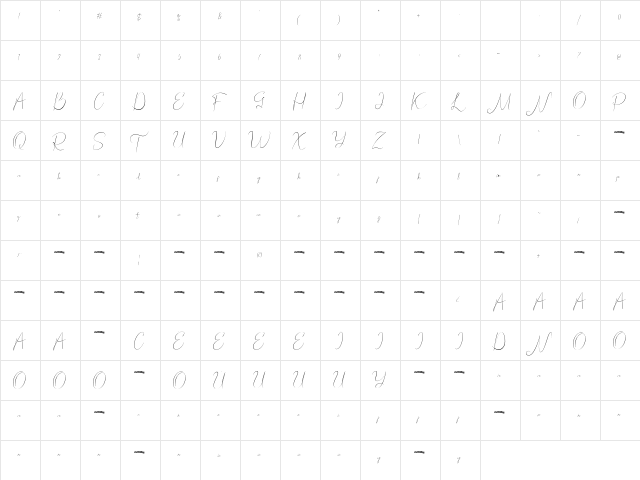
Bordershine Script Regular
| Foundry | CBRTEXT Studio |
| Designer | CBRTEXT Studio |
Design Context for Bordershine Script Typeface
Bordershine Script brings a calligraphic fluidity to the page — its connecting strokes and expressive curves give it an unmistakably human quality.
Font Pairing: Combine Bordershine Script with a simple geometric sans for maximum contrast — the tension between flowing curves and clean structure is a classic typographic pairing.